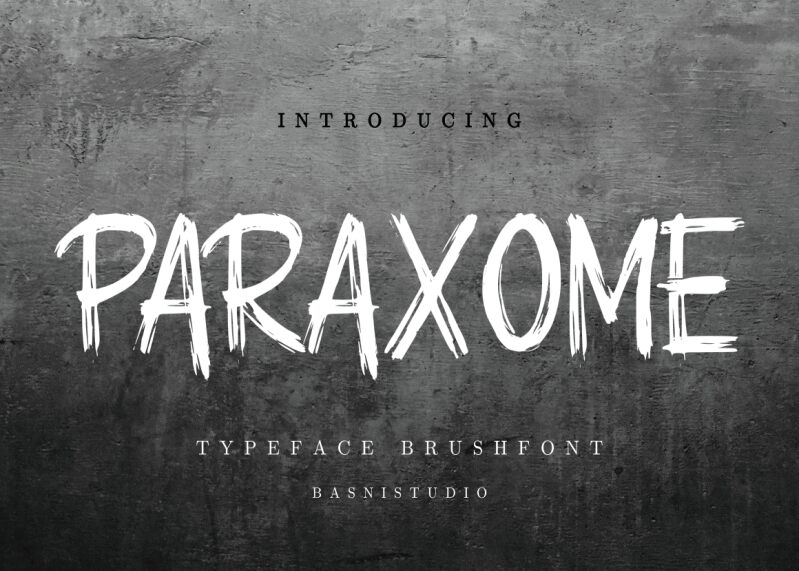
PARAXOME
Paraxome font by Basni.std is a free script font with chaotic, distressed and gritty letterform appearances. It has an urban appeal that works perfectly for projects with an alternative vibe and edgy style.
Try it out on t-shirt designs, book covers, movie posters, album art, social media graphics, vertical signs or interior designs such as wallpaper pattern ideas or event invitations where exaggerated typography is necessary.